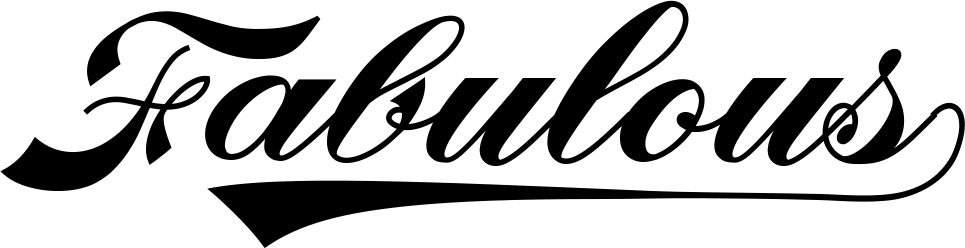
Fabulous Font
Script fonts can give life to your texts and make an elegant makeover for your texts. This font is called Fabulous with two different styles and it has handwritten and continuous characters.
You can use this 50s diner font for product names and packaging, retro banners and flyers, movie and song titles, and letters. This font includes all sets of characters except a numeric one.
Example: Fabulous_With ligatures activated, write _ and a number for more swashes.
Example: Lovely_5 Font_2